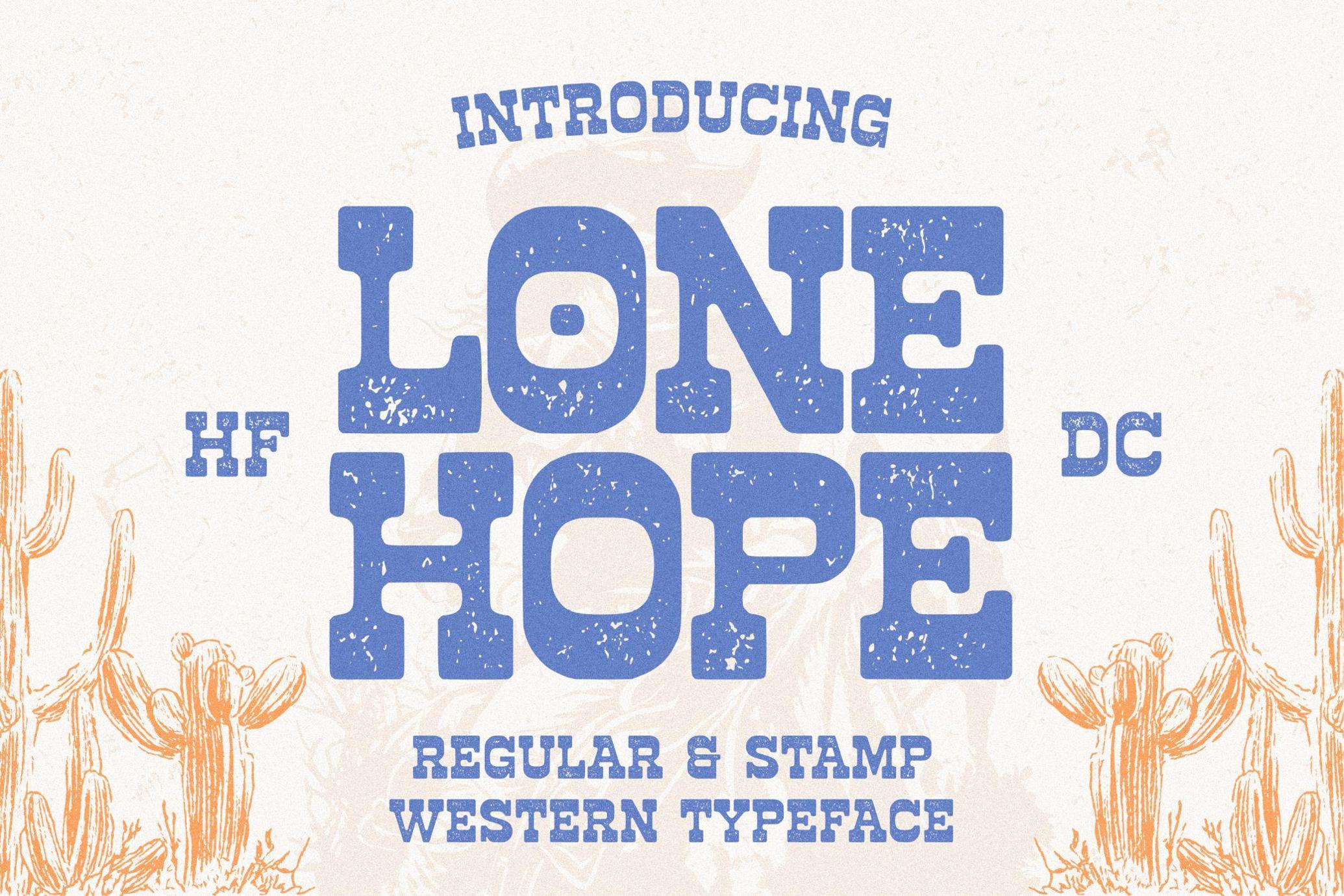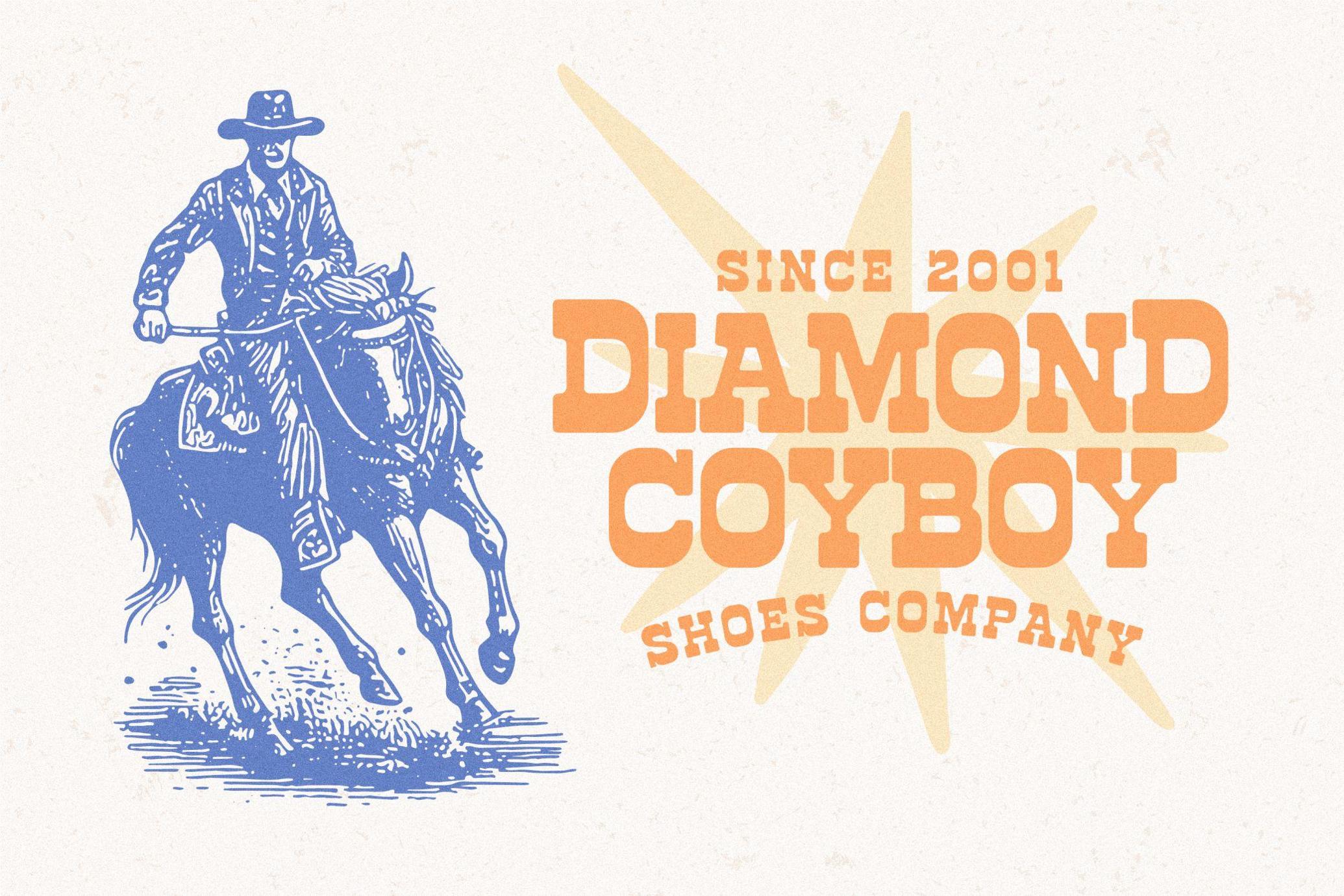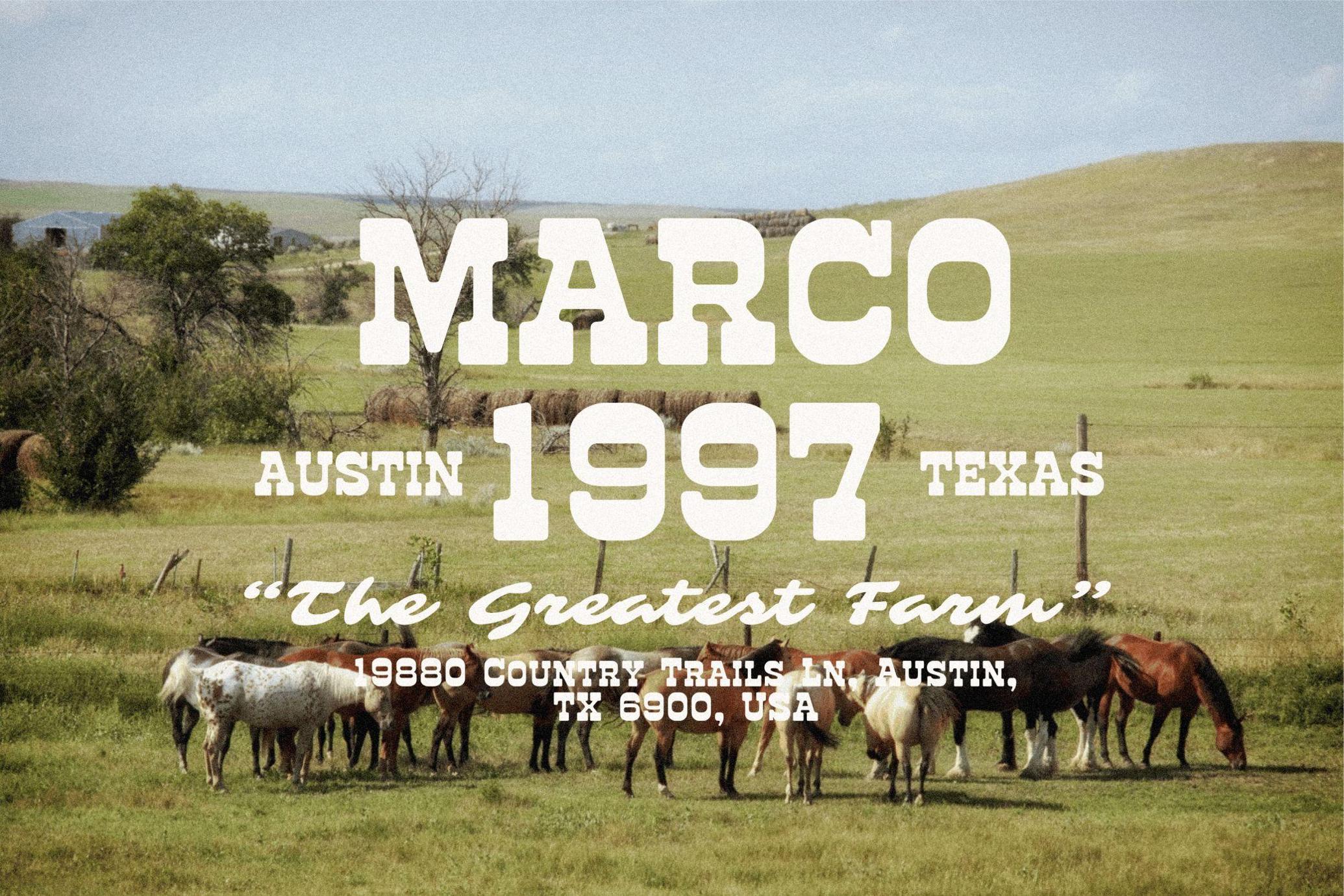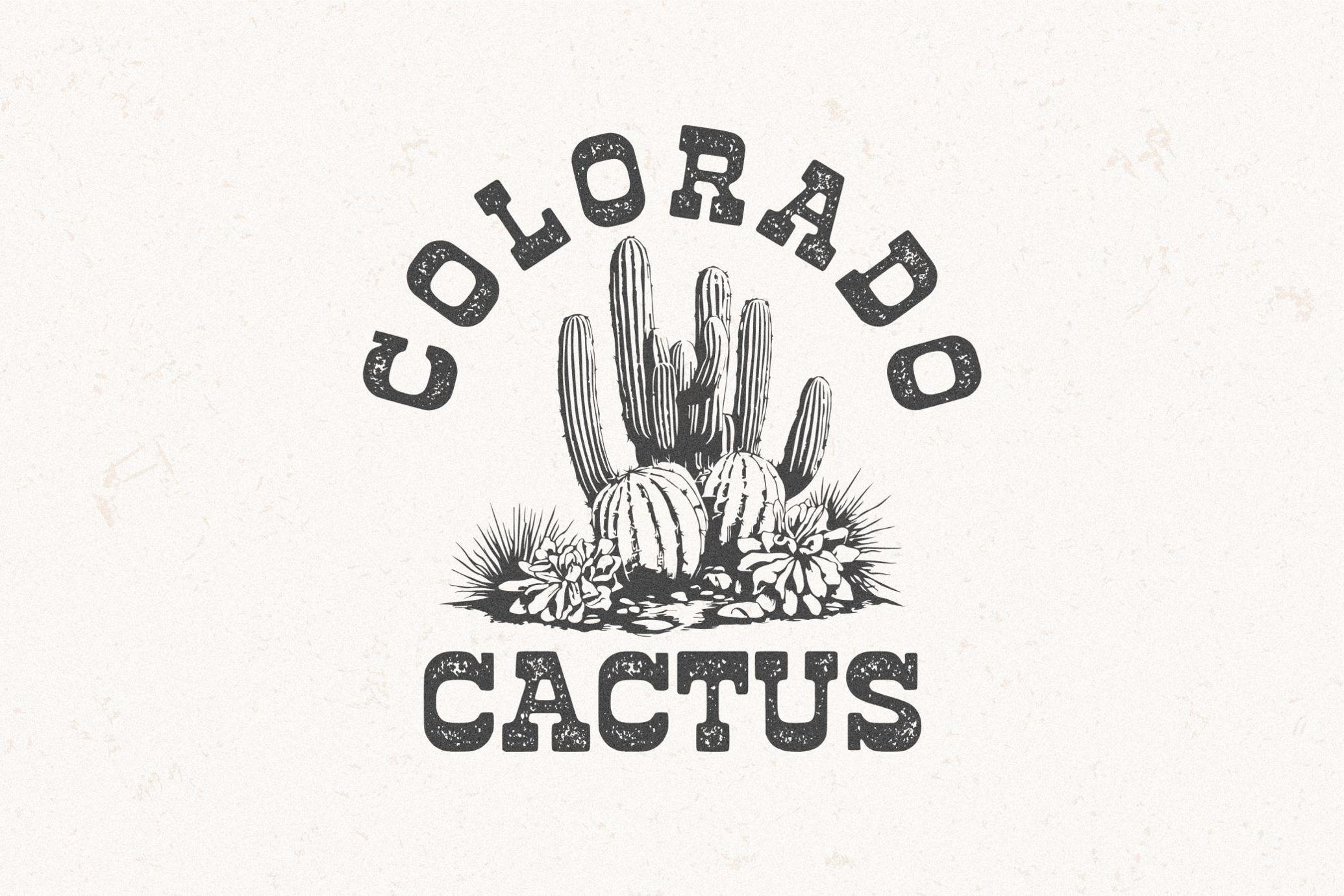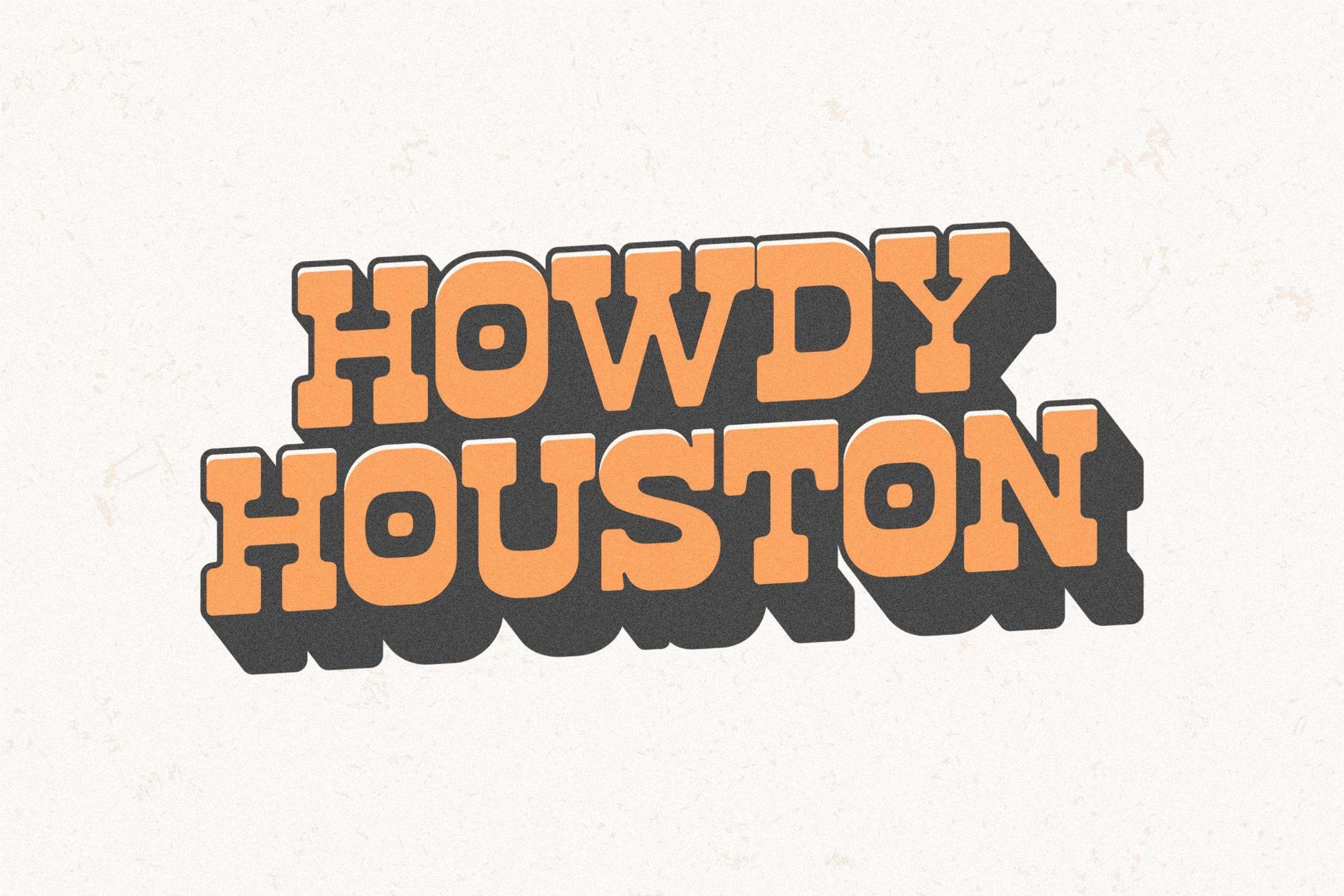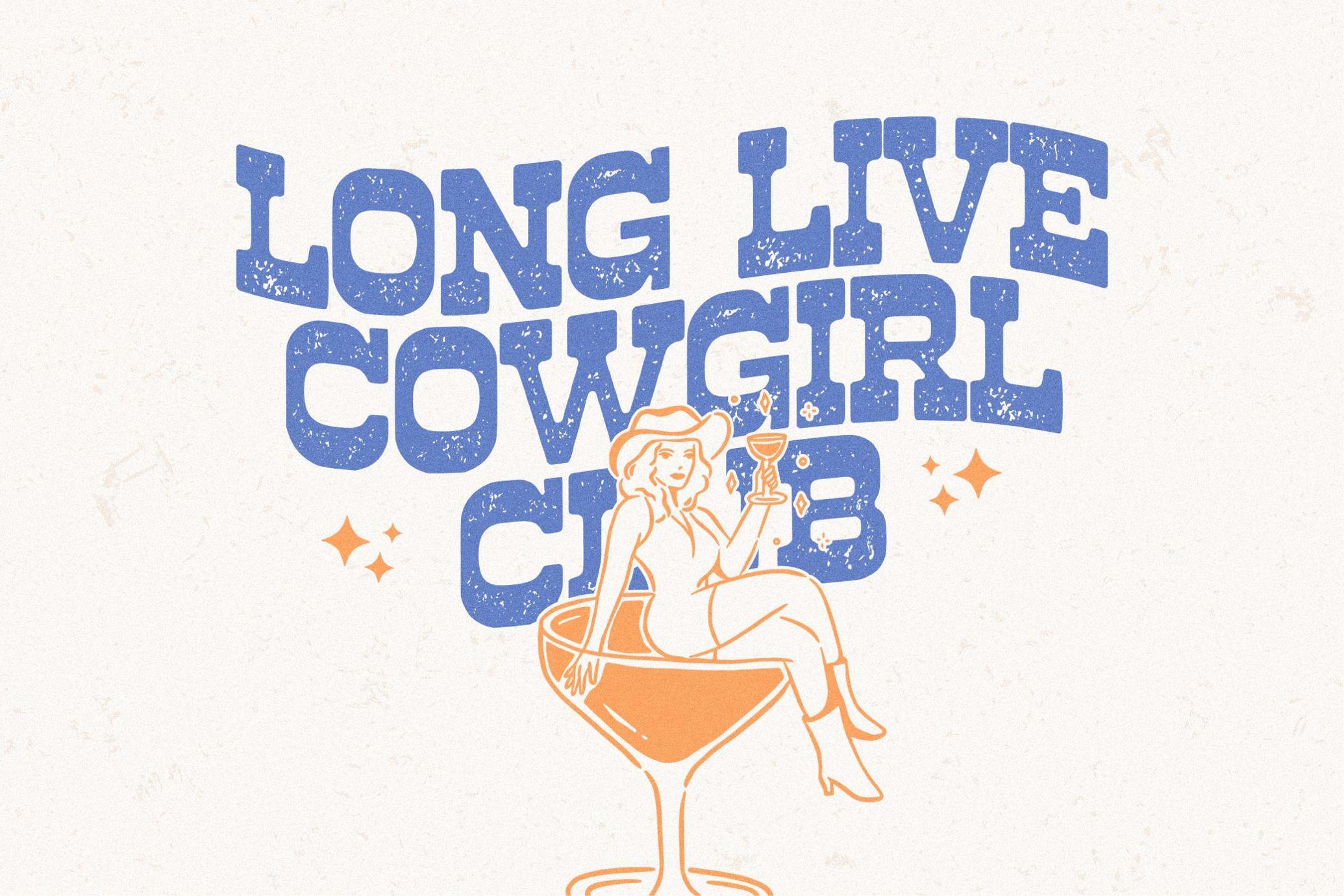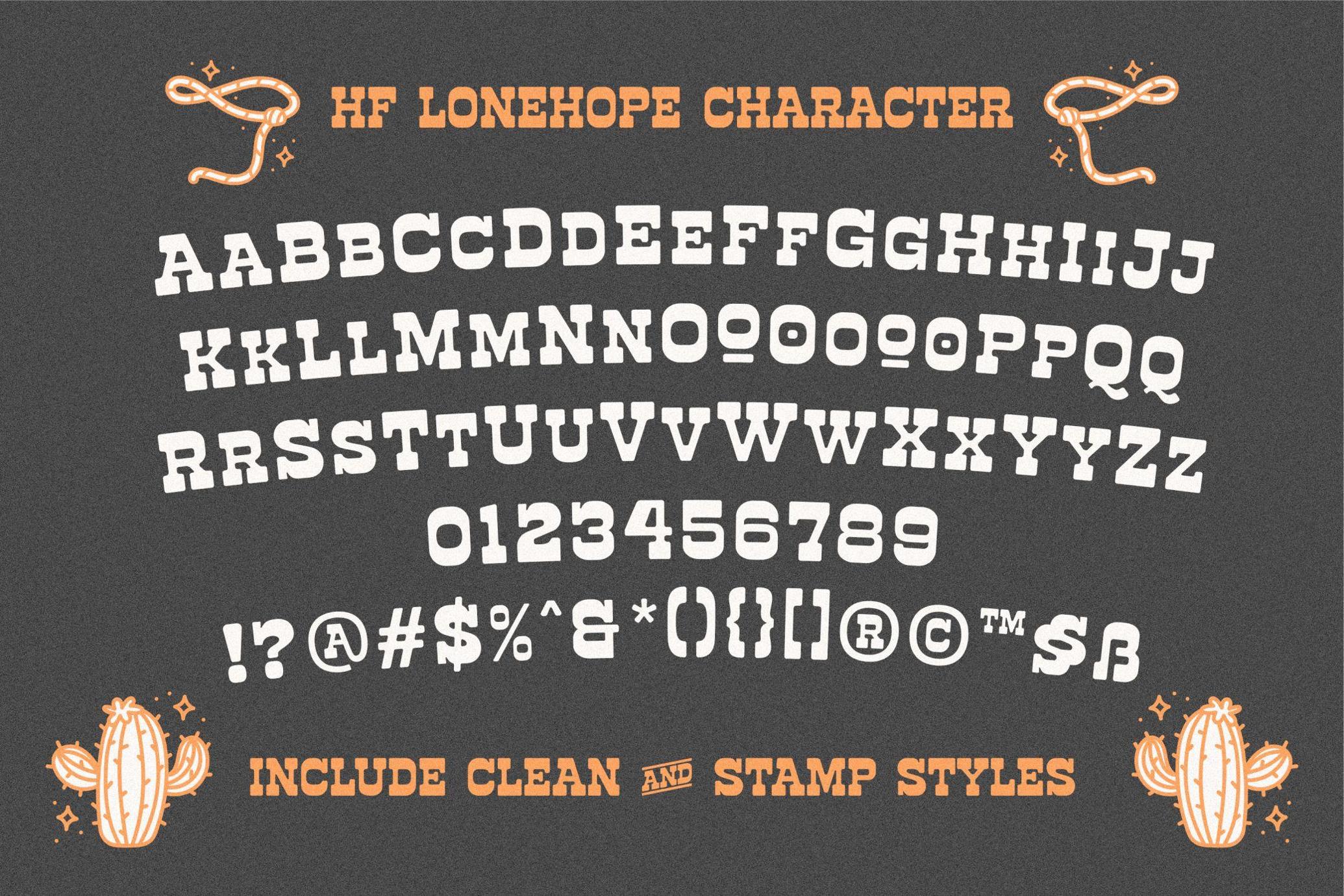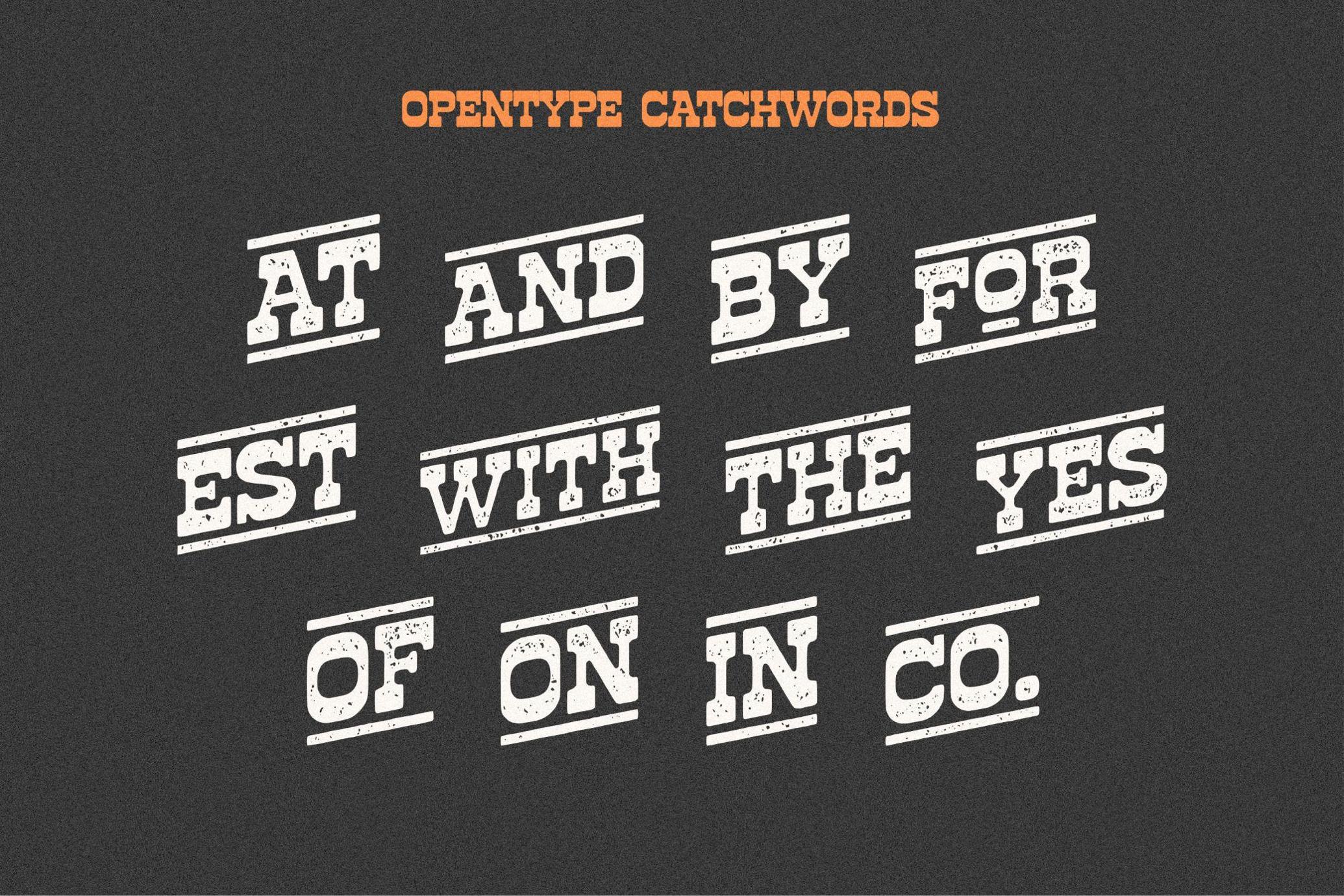
HF Lonehope - Western Slab Serif Display Font
HF Lonehope is a bold and rugged Western-style slab serif font inspired by vintage cowboy signage, rodeo posters, and old west aesthetics. Designed to capture the spirit of the frontier, this all-caps display font is perfect for branding, vintage logos, apparel design, whiskey labels, signage, retro packaging, and western-themed projects.
• All-Caps Characters – strong, bold, and full of character
• 2 Font Styles Included – Clean and Stamp (textured)
• OpenType Catchwords – built-in ligature words like AND, THE, WITH, OF, CO., etc.
• Full Punctuation & Numerals – includes symbols, numbers, and special characters
• Whether you’re designing for a western festival, rustic restaurant, vintage clothing brand, or a saloon-inspired bar, HF Lonehope will bring that classic cowboy charm to your typography.
Perfect For: Western logos, Rodeo posters, Vintage branding, Retro packaging, Outdoor gear labels, Country music covers, Americana-style designs, and more.